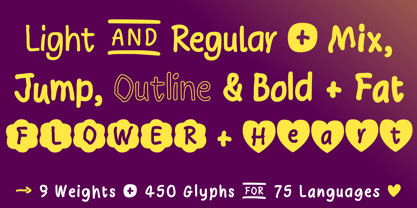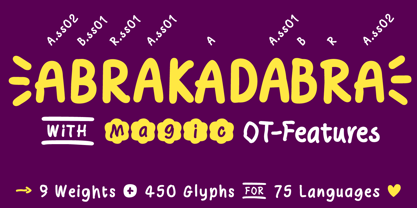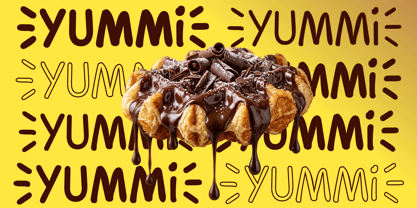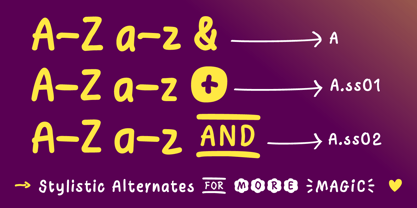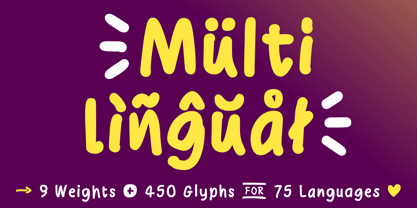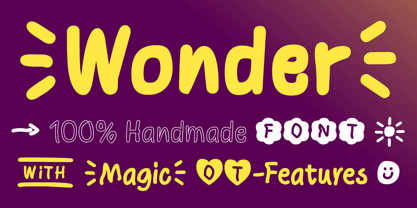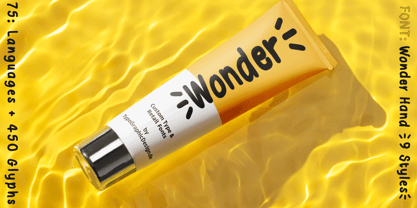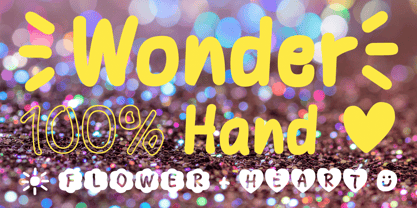
Wonder Hand Pencil
by TypoGraphicDesign
The Wonder Hand Pencil Font Family was designed by Manuel Viergutz and published by TypoGraphicDesign. Wonder Hand Pencil contains 9 styles and family package options. More about this family
Wonder Hand Pencil is a unique, 100% handmade Script Font that captures the essence of authentic handwritten text. With stylistic alternates, this typeface offers a personal and organic feel, drawing inspiration from classic sans serif forms. Created in 2026 by Wanda Thiemer and Manuel Viergutz for Typo Graphic Design, it features hand-drawn lines and playful details that enhance its charm. The font includes 9 styles and 450 glyphs (Adobe Latin 1), supporting 75 languages and offering decorative extras such as icons, arrows, catchwords, dingbats, emojis, symbols, and geometric shapes (type #LOVE for the OT-Feature dlig). With 15 OpenType features and 2 stylistic sets. Wonder Hand Pencil is perfect for logos, packaging for drinks and food, magazines, posters, advertisements, and as a webfont for eye-catching headlines. This font excels in display sizes, making it an ideal choice for impactful design projects.
Designers: Manuel Viergutz
Foundry: TypoGraphicDesign